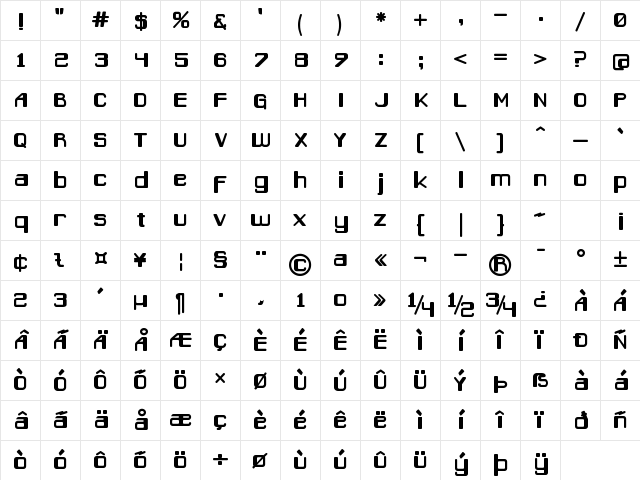
Caracas Bold
Designer: Jorge Algarin
Design Context for Caracas
Caracas is a composed and adaptable typeface that performs quietly and consistently across a wide range of design contexts. Its bold stroke weight gives it real presence on the page.